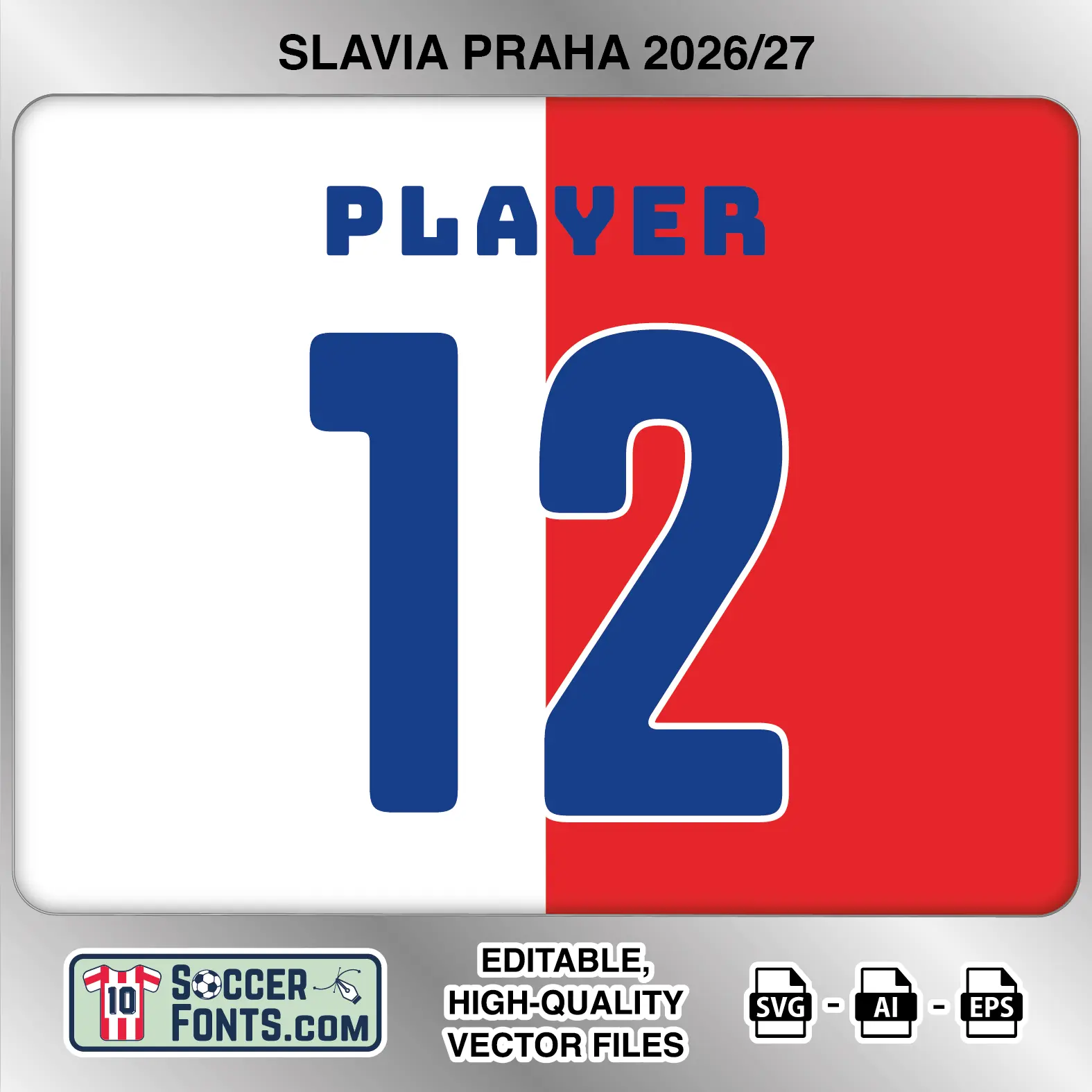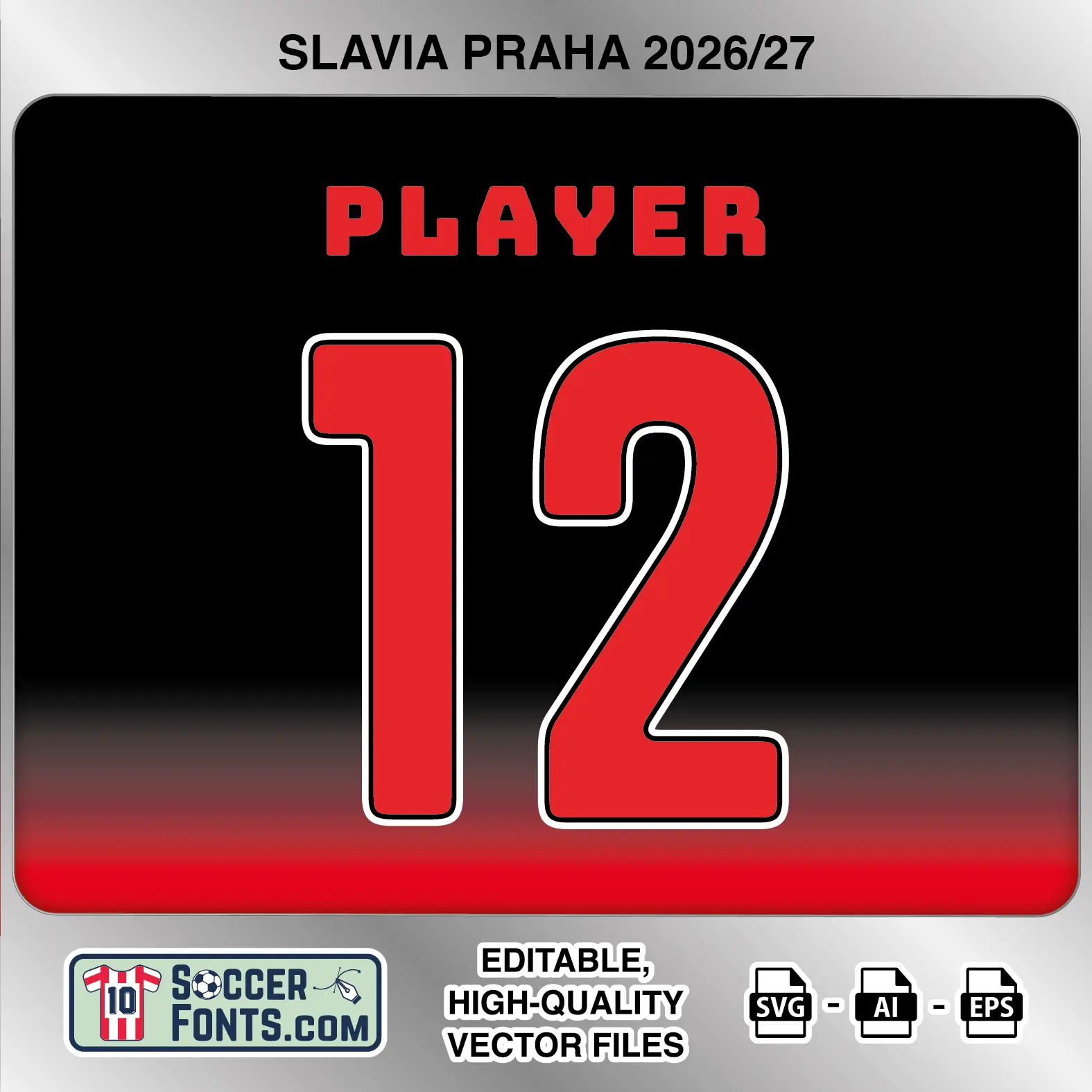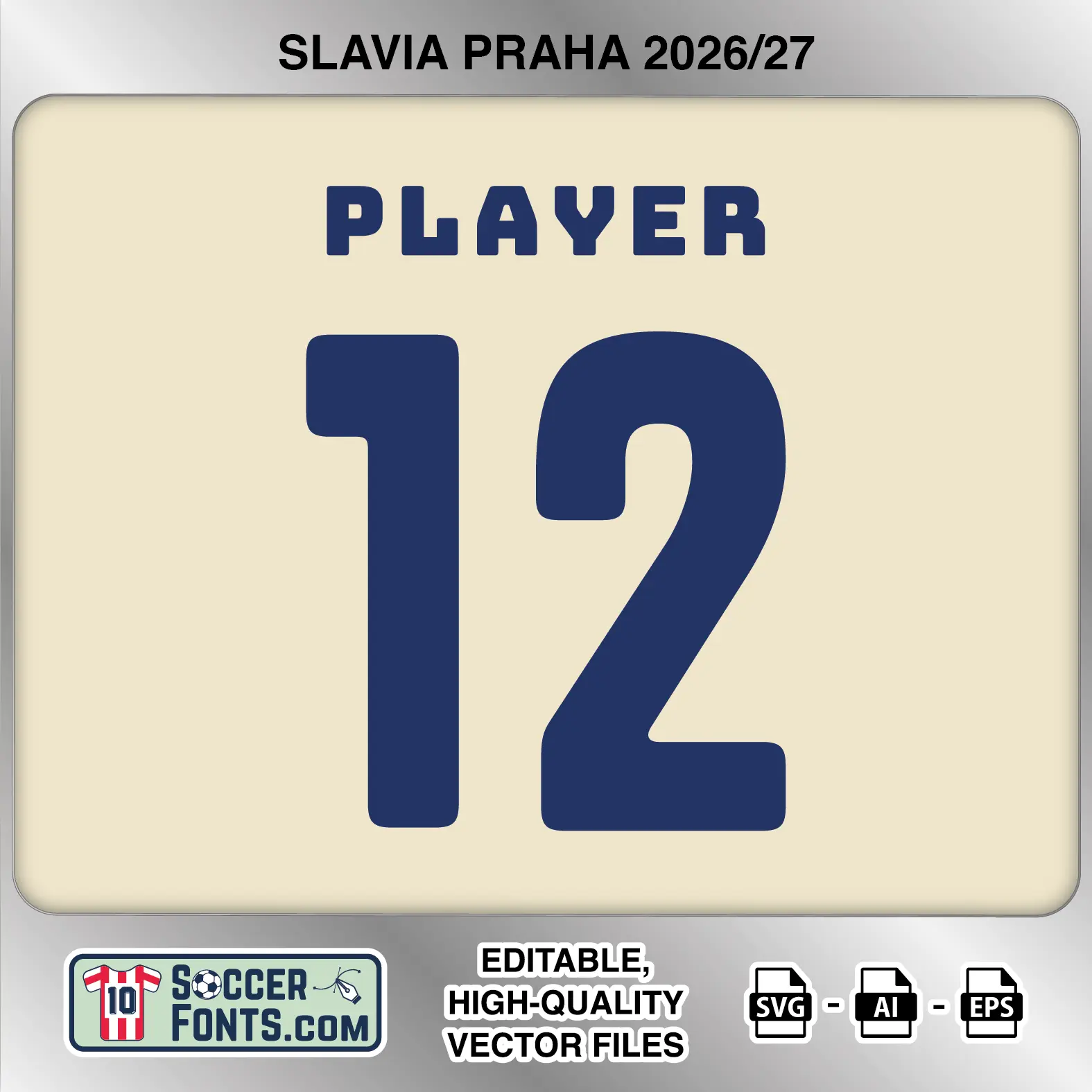
About Slavia Prague 2026-27 Font
Download Slavia Prague 2026-27 font, an editable soccer jersey lettering design in vector format inspired by the Slavia Prague home, away and third kit styles used during the 2026-27 football season. This football font artwork is prepared for football shirt recreations, custom jersey projects, football kit mockups and sports graphic design workflows.
Visual Identity of the Font Design :
The Slavia Prague 2026-27 lettering combines a compact uppercase alphabet with large, heavy numbers built around rounded corners and broad strokes. The player-name characters have a bold geometric appearance, with several letters incorporating distinctive angled cuts and softened internal shapes. The numerals are tall and substantial, with the 1 featuring a wide upper flag, while the 2 moves from a rounded top into a long diagonal section and broad horizontal base. Figures such as 3, 6, 8, 9 and 0 use large rounded forms and narrow internal openings.
The home version uses dark blue lettering and numbers across the club’s traditional divided white-and-red presentation, with a fine light edge becoming visible where the numbers cross onto the red section. The away version uses bright red lettering and numbers against a black background, with the numerals surrounded by a contrasting white and dark edge. The third version returns to solid dark blue lettering and numbers on a pale cream background without the prominent external outline used on the away treatment. All three versions include an extended selection of accented uppercase characters for international player names.
Context of 2026-27 Season for Slavia Prague :
Slavia entered the 2026-27 campaign as Czech champions after securing a second consecutive domestic league title. Jindřich Trpišovský continued his long tenure as head coach, with Lukáš Provod remaining an important figure in a squad also featuring players such as Tomáš Holeš, David Zima, Michal Sadílek and Tomáš Chorý. The Slavia Prague 2026-27 Font belongs to another season in which the Prague club combines the defence of its domestic position with UEFA Champions League football.
Slavia’s European campaign places the 2026-27 shirts on a major international stage, with Champions League league-phase fixtures against Lens, Sabah, Fenerbahçe, Arsenal, Villarreal, Bayern München, Porto and Aston Villa. The Slavia Prague 2026-27 Font therefore accompanies a particularly varied schedule stretching from Czech domestic competition to matches against clubs from several of Europe’s leading leagues.
For football shirt collectors and kit design projects, the Slavia Prague 2026-27 Font brings the home, away and third lettering treatments together in one package, providing a complete reference for recreating the club’s 2026-27 jersey lettering.